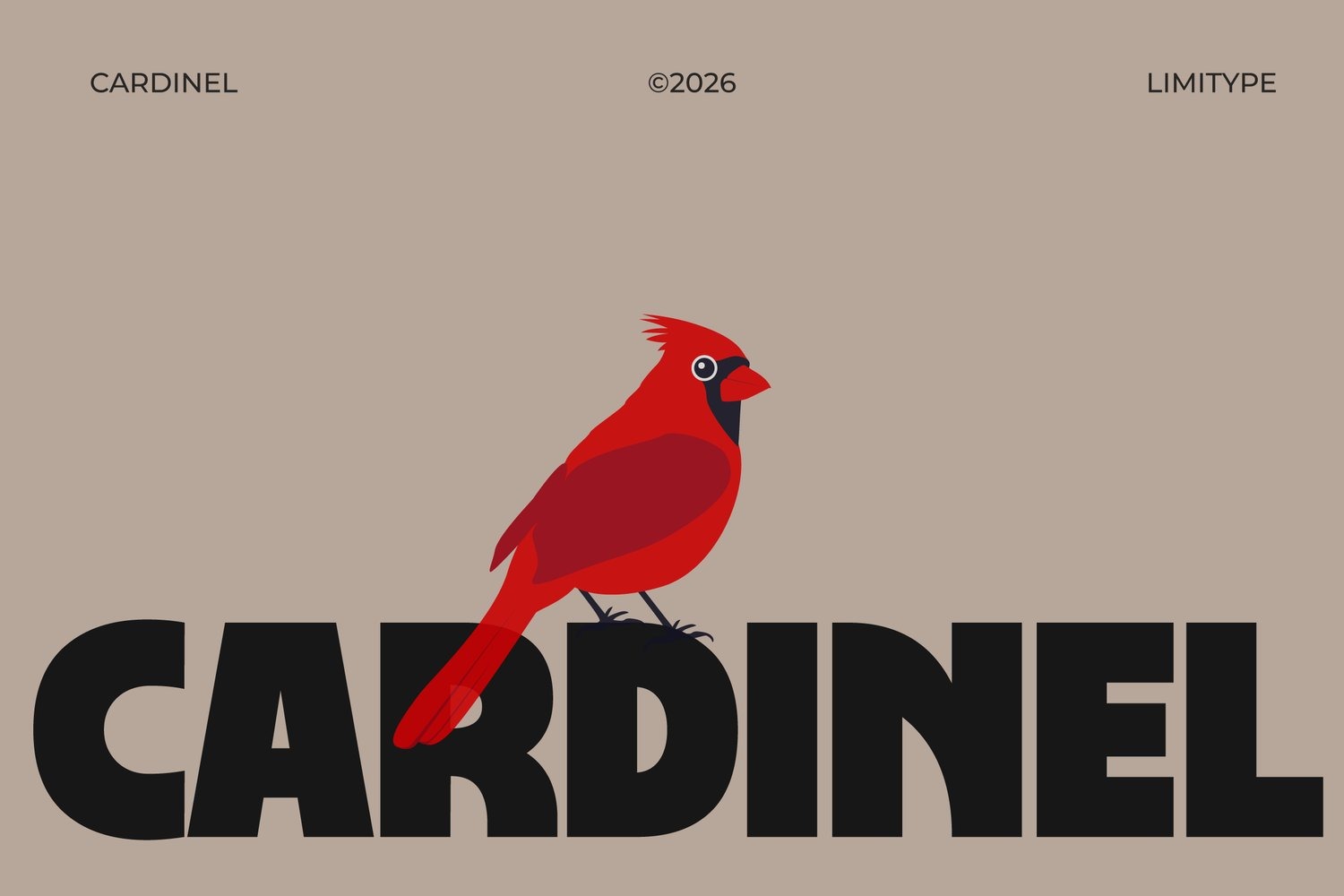
Cardinel – Bold Sans Serif Font
Cardinel – Bold Sans Serif Font is a clean and thoughtfully built typeface that works seamlessly for both professional branding and everyday creative uses. Cardinel is a bold, modern typeface built on a strong geometric structure and a dynamic visual rhythm, giving it a clean and contemporary feel. Its crisp yet energetic forms work especially well for branding, logos, headlines, posters, and editorial layouts that need to stand out. Cardinel is a great choice for modern design projects that aim to communicate with clarity, confidence, and a distinctive visual presence across both digital and print media.